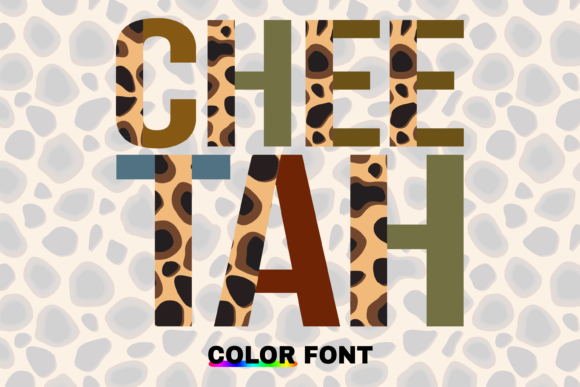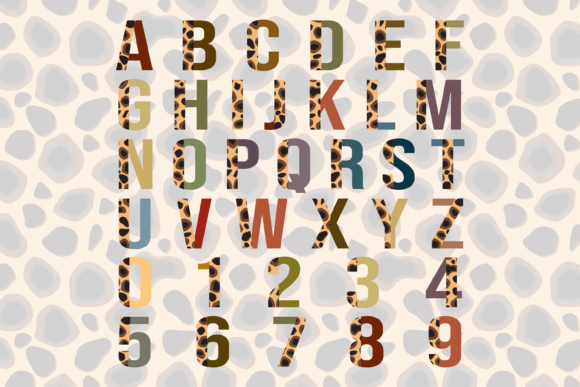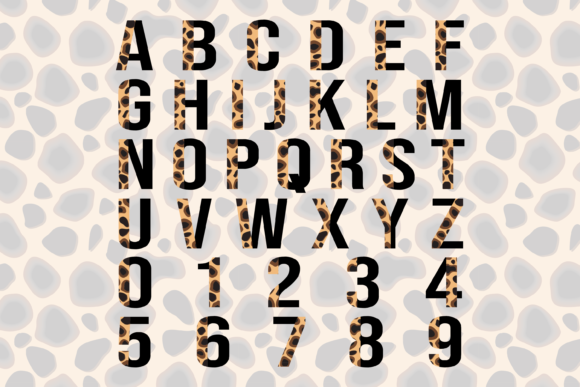
Cheetah Font
Cheetah is a color font consisting of duo styles (black & color) designed to complement each other perfectly. Together or apart, the fonts are ideal for adding special decoration to your crafts. Whether you use it for custom designs, DIY crafts, or just any creation that requires a lovely touch, this font will be an amazing choice!